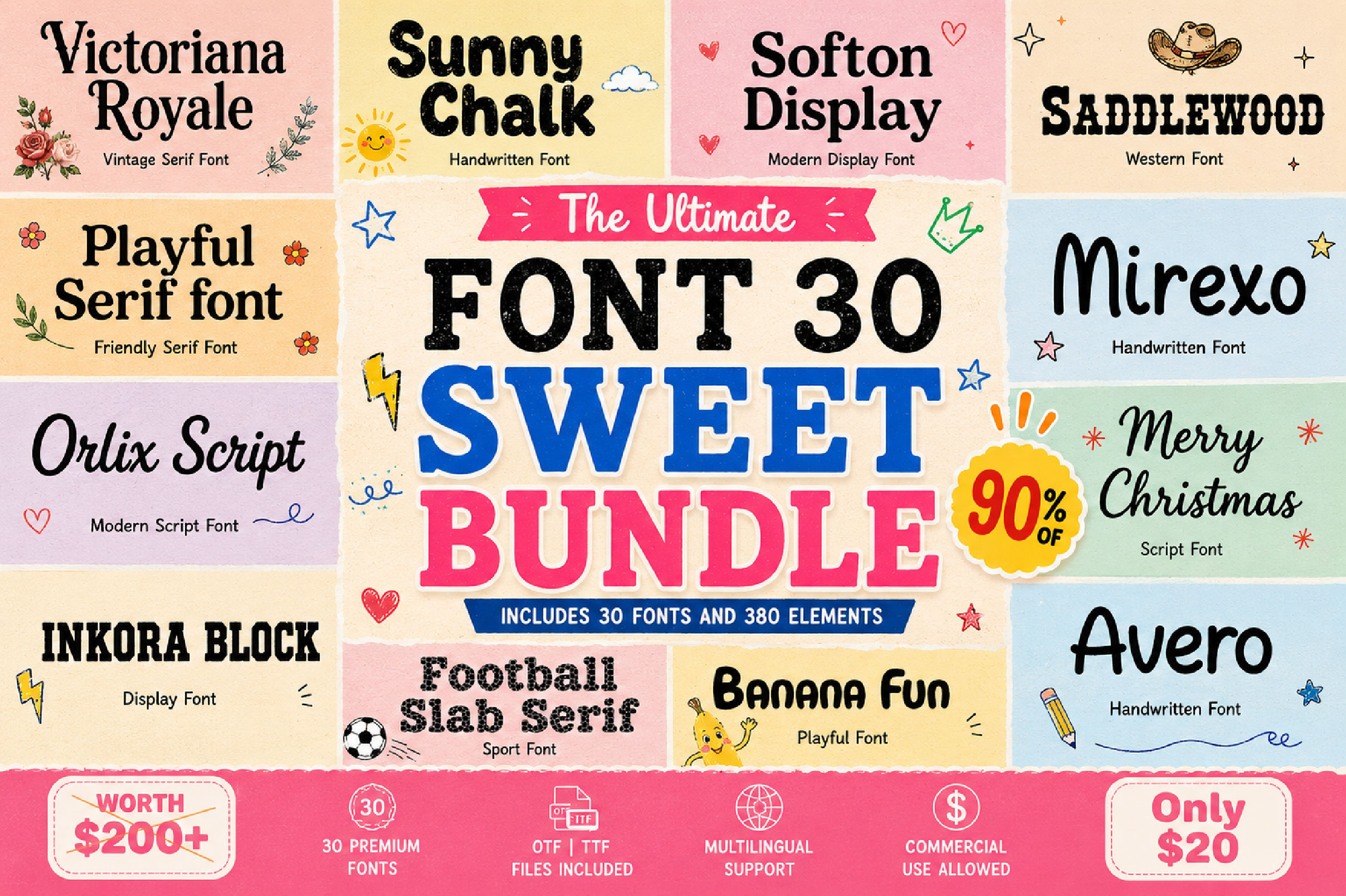
Sweet Font Mega Bundle
Sweet Font Mega Bundle – 30 Creative Fonts Collection
Sweet Font Mega Bundle is a lovely collection of 30 creative fonts, perfect for branding, logos, invitations, packaging, social media graphics, stickers, T-shirt designs, and cute creative projects.
Sweet Font Mega Bundle is a beautiful collection of 30 unique fonts created for designers, crafters, small business owners, and creative makers. This bundle includes a variety of sweet, playful, stylish, and charming font styles to help you create eye-catching designs with ease.
Whether you are designing logos, product packaging, birthday invitations, greeting cards, social media posts, stickers, labels, T-shirts, Cricut projects, sublimation designs, or digital products, this bundle gives you plenty of creative options in one complete pack.
With 30 font families included, Sweet Font Mega Bundle is perfect for both print and digital projects. It is a great choice for anyone who wants a versatile and affordable font collection for everyday creative work.
Branding and logos
Invitations and greeting cards
Product packaging
Stickers and labels
T-shirt and merchandise designs
Cricut and craft projects
Sublimation designs
Birthday and kids designs
Digital products
30 unique fonts included
Multiple sweet and creative styles
Great for print and digital projects
Ideal for designers, crafters, and small businesses